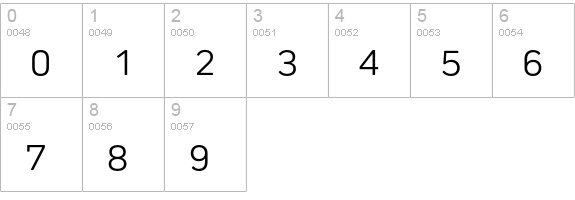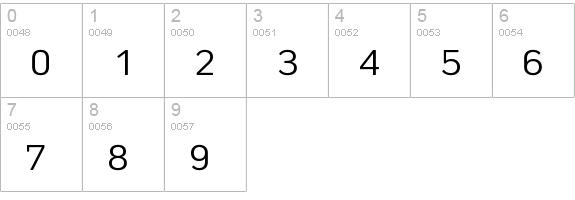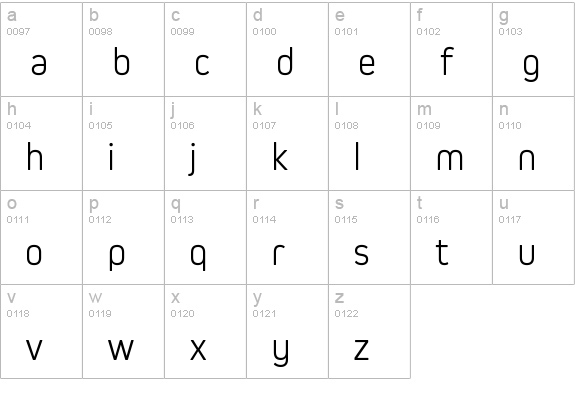
Kiro Light is a refined, elegant variant in the Kiro typeface family \xE2\x80\x94 well suited to elegant body text, refined sub-headings, and luxury branding.
Introducing Kiro Light font - a sleek and modern typeface that exudes elegance and sophistication. With its clean lines and minimalist design, Kiro Light is perfect for a wide range of projects, from branding to editorial design. This versatile font is ideal for creating a refined and professional look for your designs. Best of all, Kiro Light is available for free download at FontsMarket.com. This means you can easily access this stylish font without any cost, making it a valuable addition to your font library. Don't miss out on the opportunity to enhance your projects with the timeless beauty of Kiro Light font. Download it today and elevate your designs to the next level.